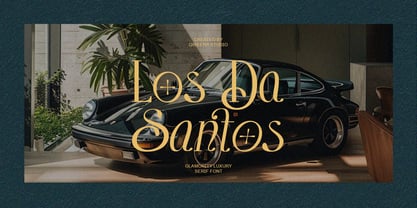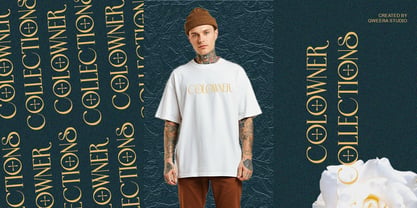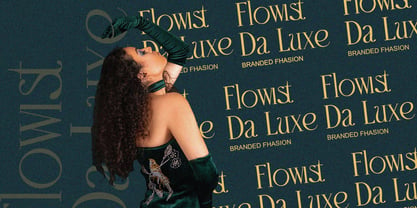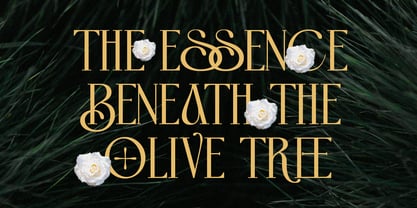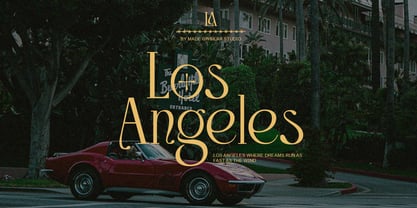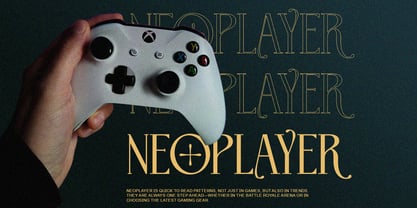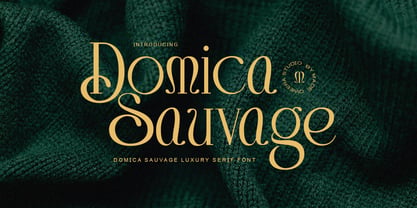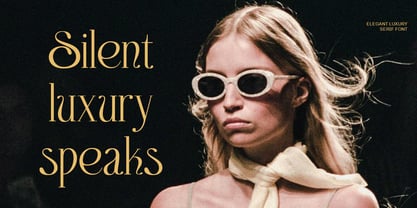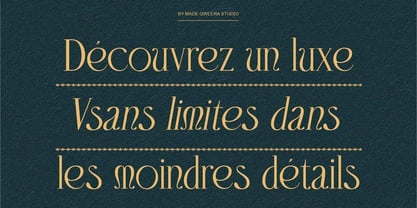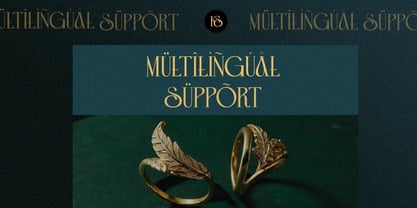
Domica Sauvage
The Domica Sauvage Font Family was designed by Idhham Cholid Rikzano Yahya and published by Qweera Studio. Domica Sauvage contains 2 styles and family package options. More about this family
Domica Sauvage - Modern Elegant Luxury Serif Font for Sophisticated Branding Domica Sauvage is an exquisite serif typeface that embodies contemporary luxury with its refined elegance and bold character. Featuring both Regular and Italic styles with premium alternates and ligatures, this font is meticulously crafted for high-end branding, luxury logos, premium packaging, and editorial designs that demand both prestige and visual impact. Where Modern Luxury Meets Timeless Sophistication With its sharp serif details and fluid italic variant, Domica Sauvage delivers unparalleled versatility for elite brands. The carefully designed alternates and ligatures enable flawless typographic compositions that radiate exclusivity and modern refinement. Premium Features Include: Luxury Serif Design – Sophisticated letterforms with couture-inspired details Dual Style Versions – Regular & italic for dynamic visual storytelling Exclusive Alternates – 25+ premium character variations Designer Ligatures – Seamless letter connections for elevated typography Universal Application – From luxury packaging to high-end editorials Extended Latin Support – Complete professional character set Elevate Your Brand with Domica Sauvage's Haute Couture Typography Ideal for: Luxury fashion branding High-end jewelry packaging Premium cosmetic campaigns Fashion editorial layouts Exclusive event promotions Available Now – Experience Domica Sauvage's Unparalleled Elegance!